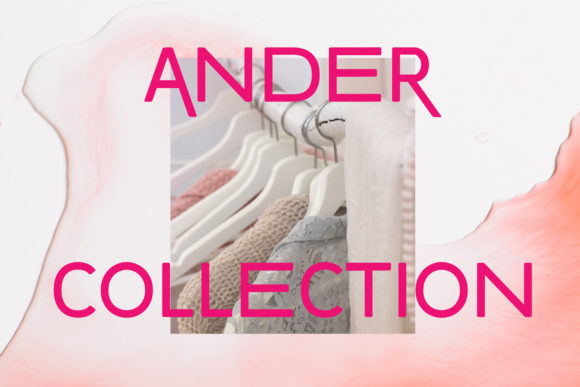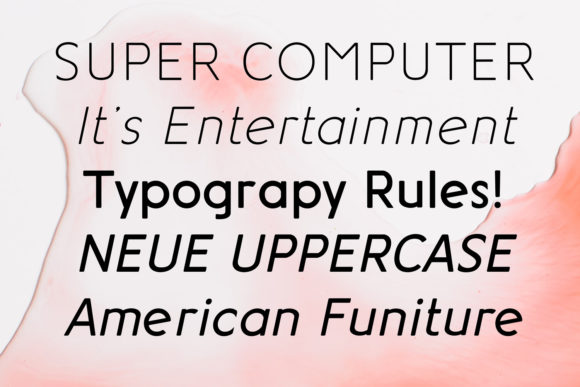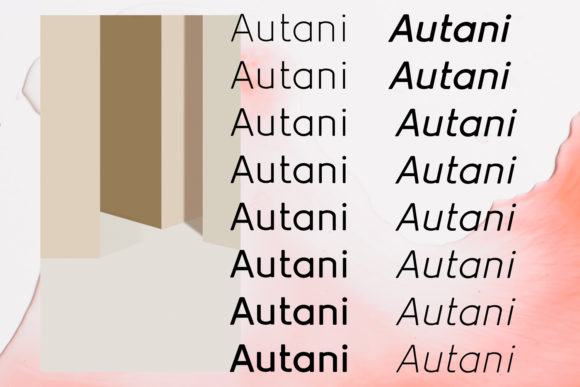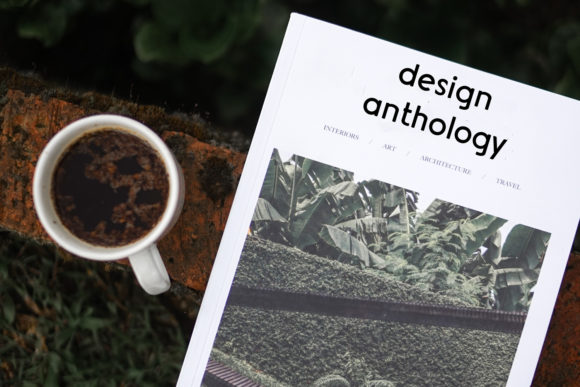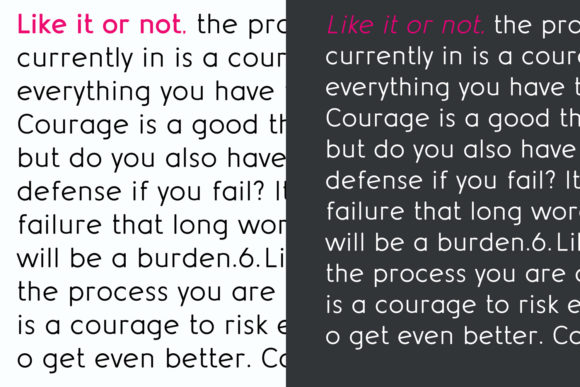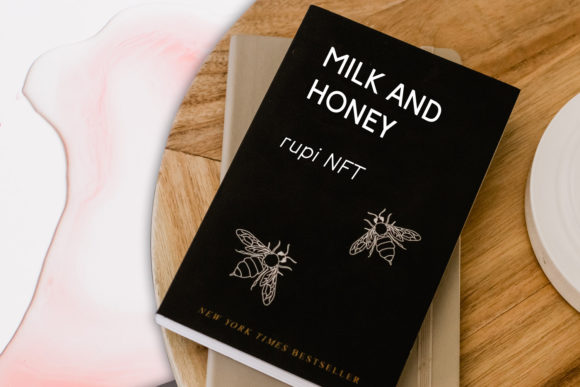
Aotani Font: Elevate Your Designs with a Touch of Simplicity
In the world of typography, fonts play a crucial role in bringing creative ideas to life. Among the numerous fonts available, Aotani stands out as a masterpiece of simplicity and elegance. Aotani is a thin lettered and simple sans serif font, carefully crafted to become a true favorite among designers and crafters. With its clean lines and minimalist approach, Aotani has the potential to elevate each of your creative projects to new heights.
The Beauty of Simplicity
Aotani’s design is characterized by its thin lettering and sans serif style, making it an ideal choice for designers seeking a clean and modern look. The font’s simplicity is its greatest strength, allowing it to adapt seamlessly to various design contexts. Whether you’re working on a logo, brochure, or website, Aotani’s understated elegance ensures that your message takes center stage.
One of the key advantages of Aotani is its versatility. This font can be used across a wide range of projects, from print materials to digital platforms. Its legibility and clarity make it perfect for body text, while its stylish appearance ensures that headlines and titles grab attention. Aotani’s flexibility allows designers to experiment with different layouts, colors, and textures, giving them the freedom to push the boundaries of their creativity.
Why Designers Love Aotani
So, what makes Aotani a favorite among designers? Here are a few reasons:
- Ease of use: Aotani’s simple and clean design makes it easy to read and work with, even for those who are new to design.
- High legibility: The font’s thin lettering and sans serif style ensure that text remains clear and legible, even at small sizes.
- Professional look: Aotani’s elegant appearance gives any design a professional and polished look, making it perfect for clients who demand high-quality work.
- Customization options: Aotani can be easily customized to fit your brand’s unique style, making it a versatile addition to your design toolkit.
Aotani in the World of Crafting
Aotani is not just limited to digital design; it’s also a great choice for crafters who love working with physical materials. The font’s simple and elegant appearance makes it perfect for:
- Hand lettering: Aotani’s clean lines and minimalist style make it easy to replicate by hand, adding a personal touch to your craft projects.
- Paper crafting: Aotani’s thin lettering and sans serif style make it ideal for paper crafting projects, such as card making and scrapbooking.
- DIY projects: Aotani’s versatility and ease of use make it a great choice for DIY projects, such as making signs, labels, and other decorative items.
Getting the Most Out of Aotani
To unlock Aotani’s full potential, here are some tips:
- Experiment with colors: Aotani’s simplicity makes it a great canvas for experimenting with different colors and textures.
- Play with font sizes: Aotani’s legibility ensures that it remains clear even at small sizes, making it perfect for creating visual hierarchies.
- Combine with other fonts: Aotani’s versatility makes it easy to pair with other fonts, allowing you to create unique and interesting typographic combinations.
Aotani is more than just a font – it’s a design tool that can help bring your creative ideas to life. Its simplicity, elegance, and versatility make it a valuable addition to any designer’s toolkit. Whether you’re working on a digital project or a physical craft, Aotani is sure to become a true favorite. So why not give Aotani a try and see how it can elevate your designs to new heights?